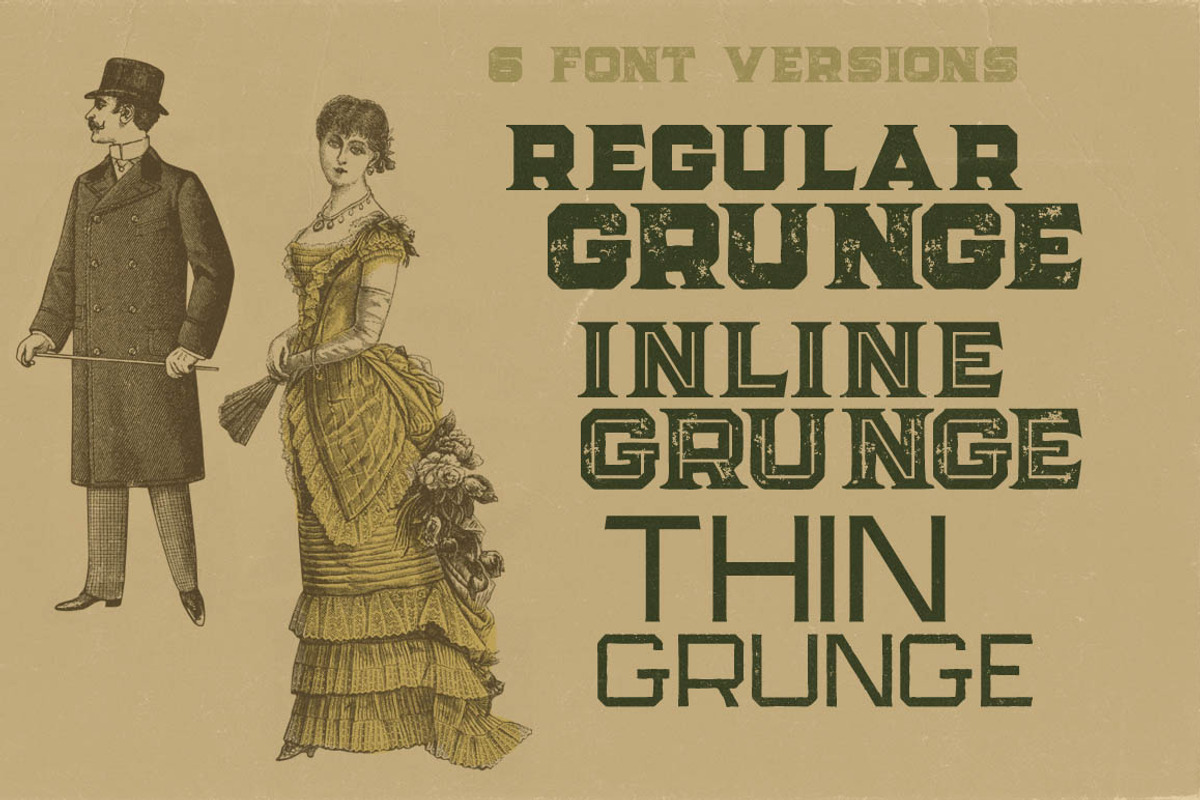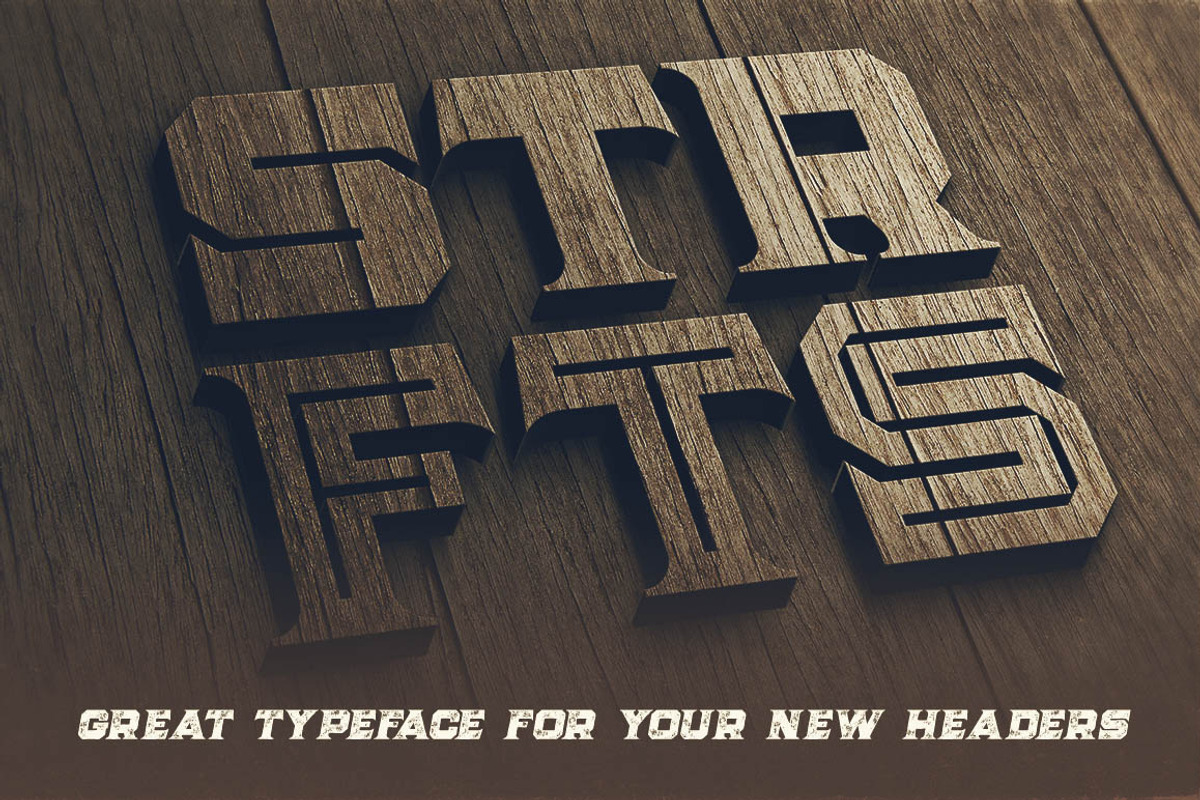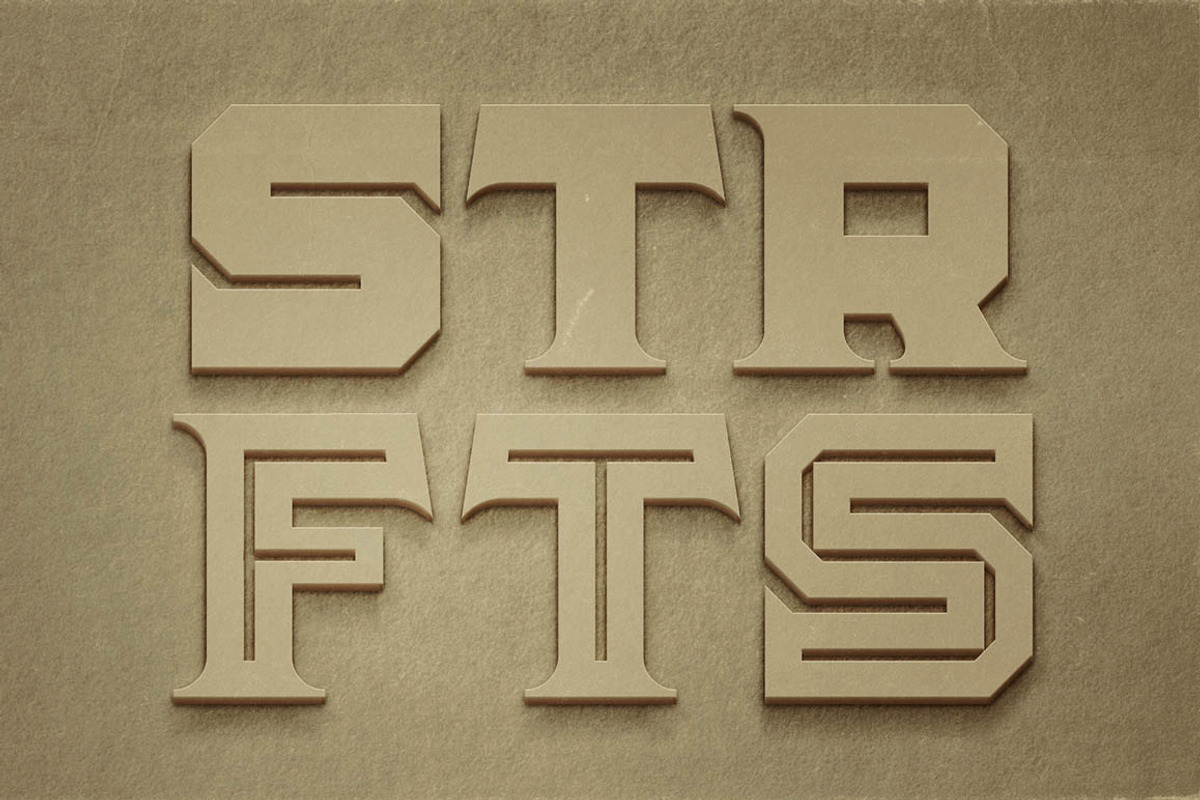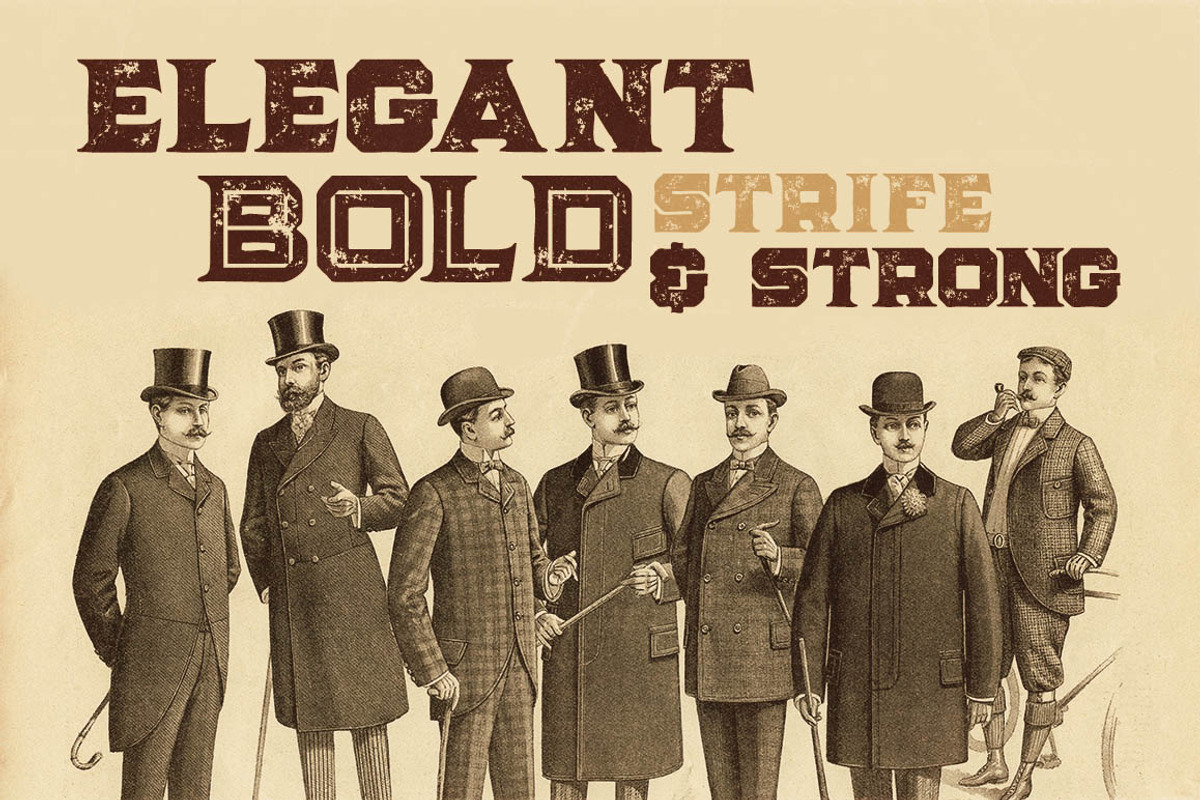
Strife - Display Font
Strife - Display Font by JumboDesign is a font selected for branding, posters, packaging, typography.
Why Strife - Display Font is worth a look
Strife - Display Font by JumboDesign fits naturally into Branding, posters, packaging, typography.